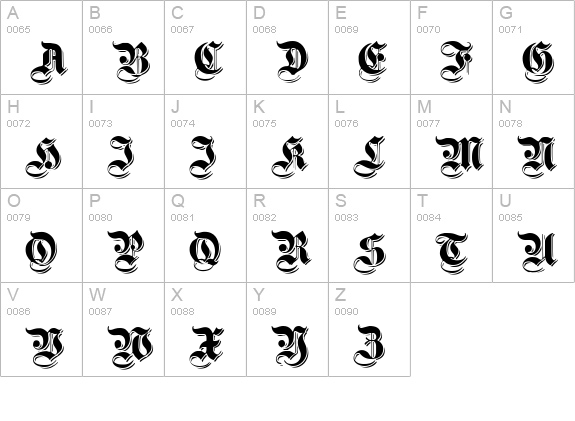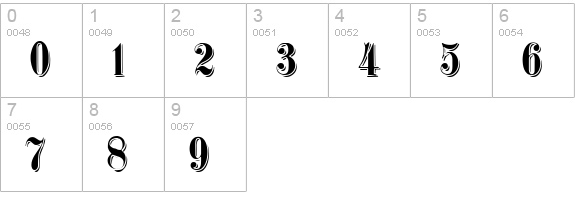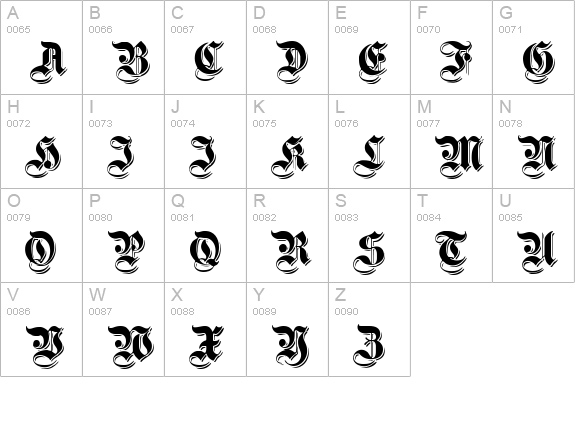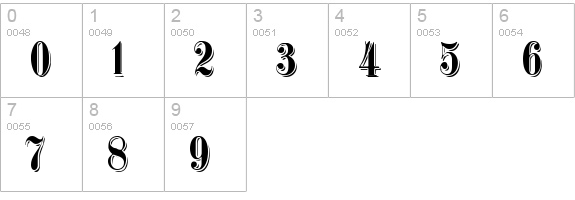
ShadowedGermanica Font Details
ShadowedGermanica font is a captivating and versatile typeface that effortlessly combines elegance with a touch of mystery. Its unique and intricate design is inspired by the Gothic architecture of Germany, exuding a sense of grandeur and timelessness. The sharp edges and subtle shadowing of each letter create a striking visual impact, making this font perfect for adding an air of sophistication to any project. What makes ShadowedGermanica font even more exceptional is that it is completely free. Yes, you heard it right! This incredible font is freely available to download at FontsMarket.com. Embracing the concept of accessibility, the creators of ShadowedGermanica believe that everyone should have the opportunity to utilize this remarkable font without any restrictions. Whether you are designing a logo, creating a poster, or crafting a website, ShadowedGermanica font will undoubtedly elevate your project to new heights. Its versatility allows it to be used in a variety of contexts, from elegant and formal designs to edgy and unconventional aesthetics. With its extensive character set, you can confidently convey your message with clarity and impact. The attention to detail in every curve and line of ShadowedGermanica font showcases the dedication and craftsmanship of its creators. Each letter has been meticulously crafted to ensure legibility and artistic appeal, resulting in a font that seamlessly combines beauty and functionality. Its timeless design transcends trends, ensuring that your work will remain visually captivating for years to come. Don't miss out on the opportunity to enhance your designs with the alluring allure of ShadowedGermanica font. Visit FontsMarket.com today to download this extraordinary font for free. Unleash your creativity and let ShadowedGermanica font be the catalyst for your next design masterpiece.